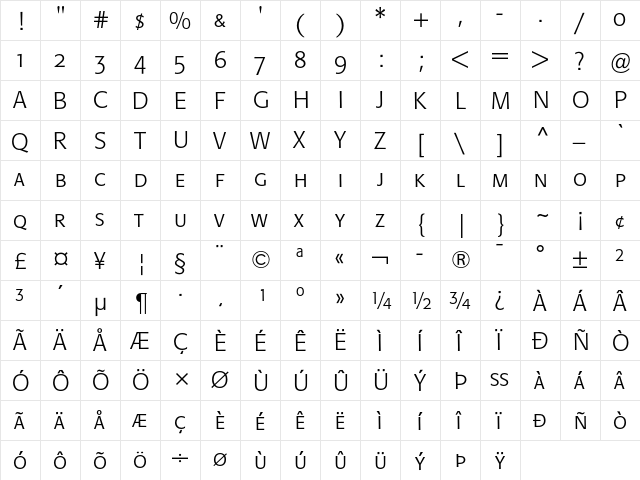
Formata Light SC Font Preview
Formata Light SC
Design Context for Formata Typeface
Formata is a composed and adaptable typeface that performs quietly and consistently across a wide range of design contexts. The delicate stroke weight brings airiness and refinement to layouts.